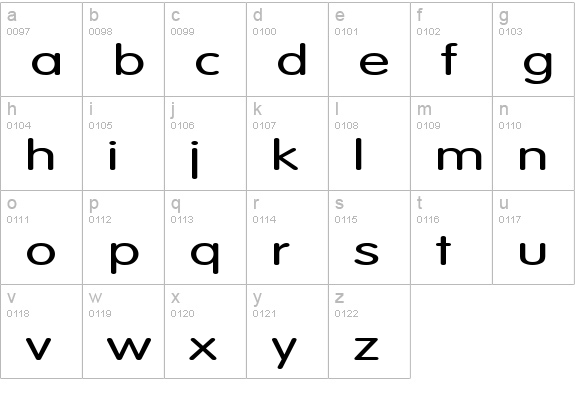
VAGRounded-Light Ex is a refined, elegant variant in the VAGRounded typeface family \xE2\x80\x94 well suited to elegant body text, refined sub-headings, and luxury branding.
VAGRounded-Light Ex font is a stunning display font that exudes a sense of elegance and modernity. With its rounded edges and sleek design, this font is perfect for projects that require a touch of sophistication. What sets VAGRounded-Light Ex font apart is not just its aesthetics, but the fact that it is freely available for download. Yes, you read that right – this incredible font can be accessed without any cost! FontsMarket.com, a leading platform for font enthusiasts, offers this font as part of their extensive collection of free fonts. Whether you are a graphic designer, a web developer, or simply someone who appreciates beautiful typography, VAGRounded-Light Ex font is a must-have in your font library. Its versatility allows it to be used in a wide range of projects, including logos, branding materials, invitations, posters, and more. The clean and legible nature of VAGRounded-Light Ex font makes it suitable for both print and digital applications. Its light weight adds a delicate touch to your designs, while the rounded edges give it a friendly and approachable feel. This font brings a harmonious balance to any composition, making it a popular choice among designers. Downloading VAGRounded-Light Ex font is effortless. Simply visit FontsMarket.com, search for this font, and within a few clicks, it will be yours to use in your creative endeavors. With its free availability, you can explore the limitless possibilities of this font without any constraints. Don't miss out on the opportunity to enhance your designs with VAGRounded-Light Ex font. Download it today from FontsMarket.com and let your creativity soar to new heights.